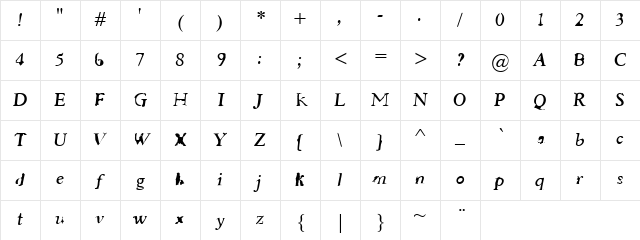
Suffrage GSD
Complete Suffrage GSD glyph index. Displaying only characters natively supported by Suffrage GSD font.
Design Context for Suffrage
Suffrage is a composed and adaptable typeface that performs quietly and consistently across a wide range of design contexts.